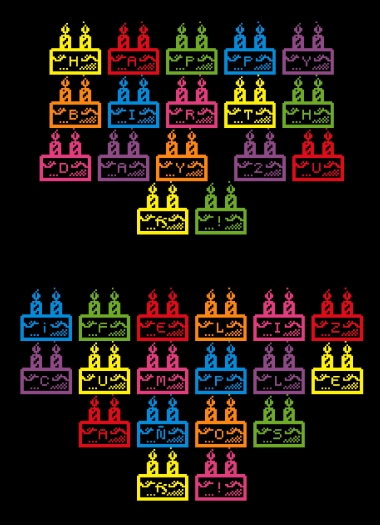
Living FS!
Thank you very much, dear Mr. Frodo 7, but these glyphs have only been a hasty tribute to all the Staff and all the people involved in FS, I do not think they will become a comprehensive font, but who knows ...
An easter egg on my font, revealed.
As a tribute to FS, I decided to make my "ß" look like an 'fs' ligature, like you did.
*on the 'F' and 'S'